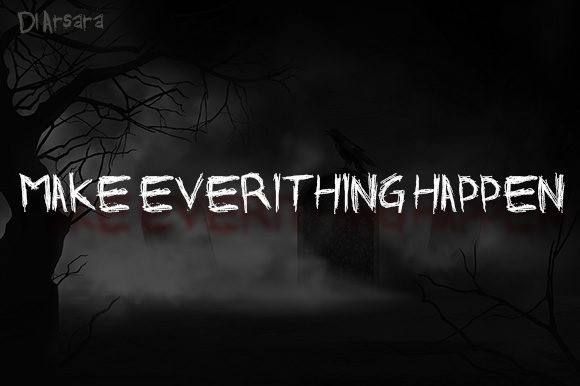
Mistery Silent Font
Mistery Silent Font is a simple and friendly handwritten font. Its natural and unique style makes it incredibly fitting to a large pool of designs. The only limit is your imagination!